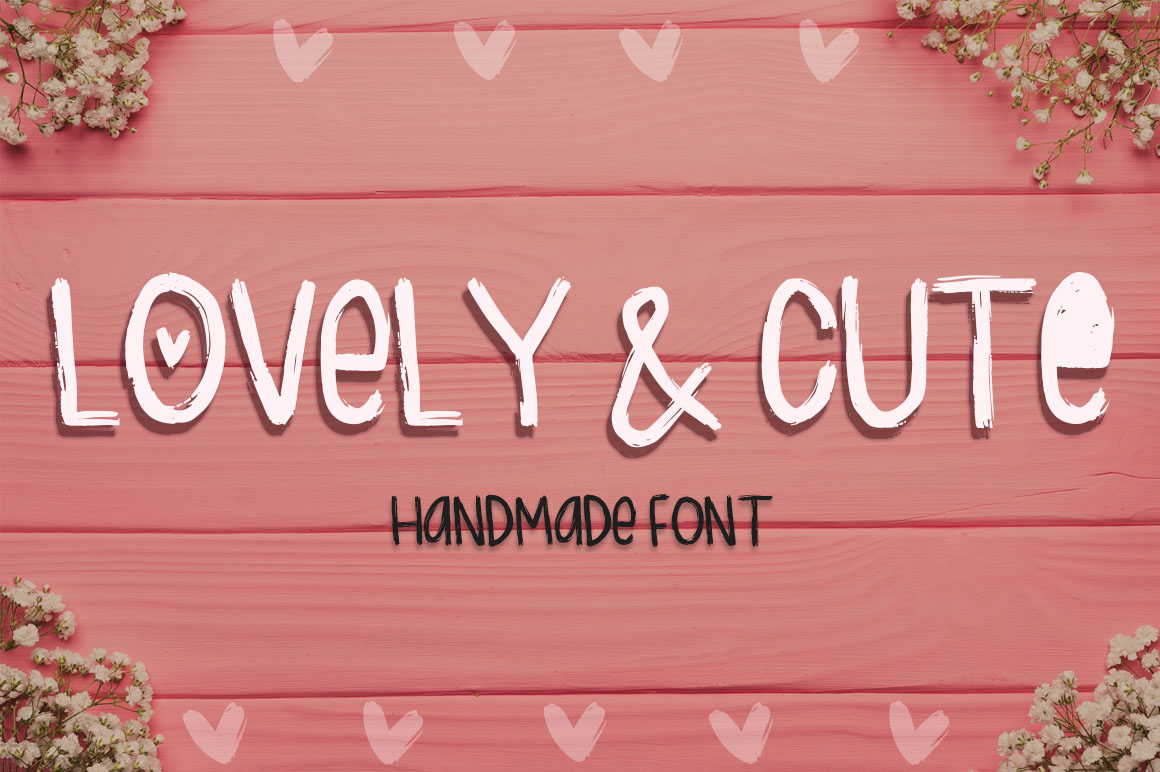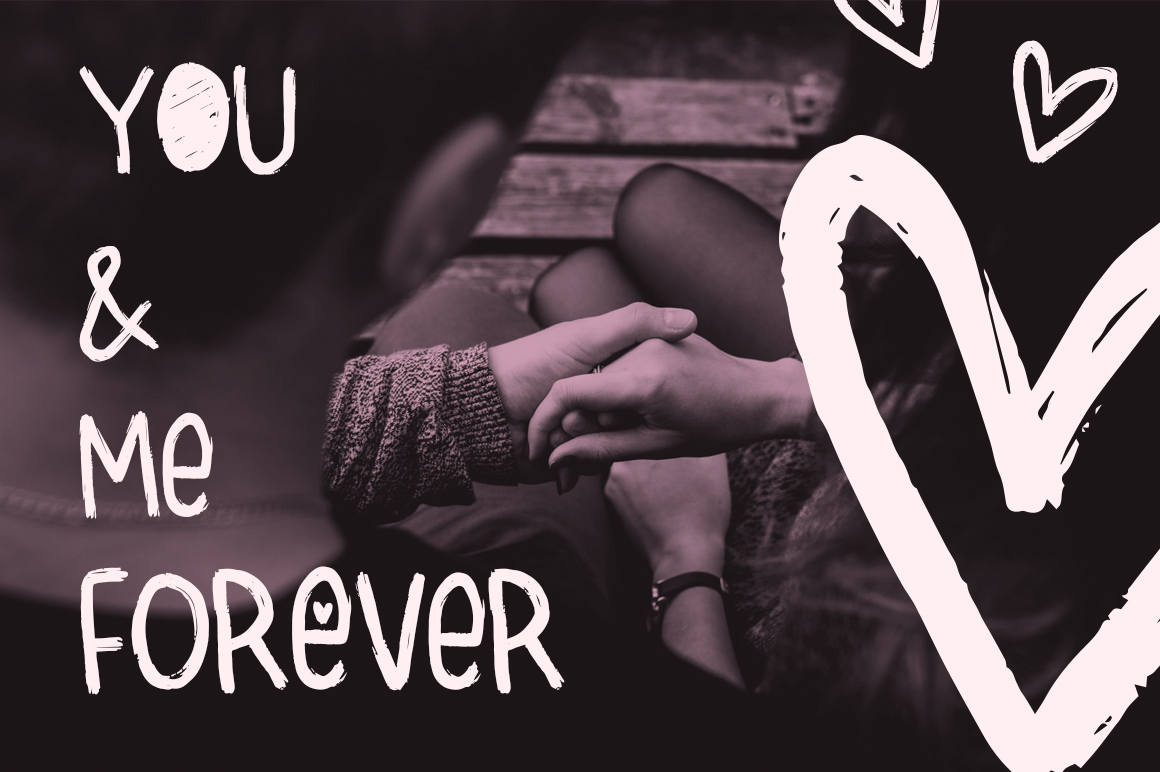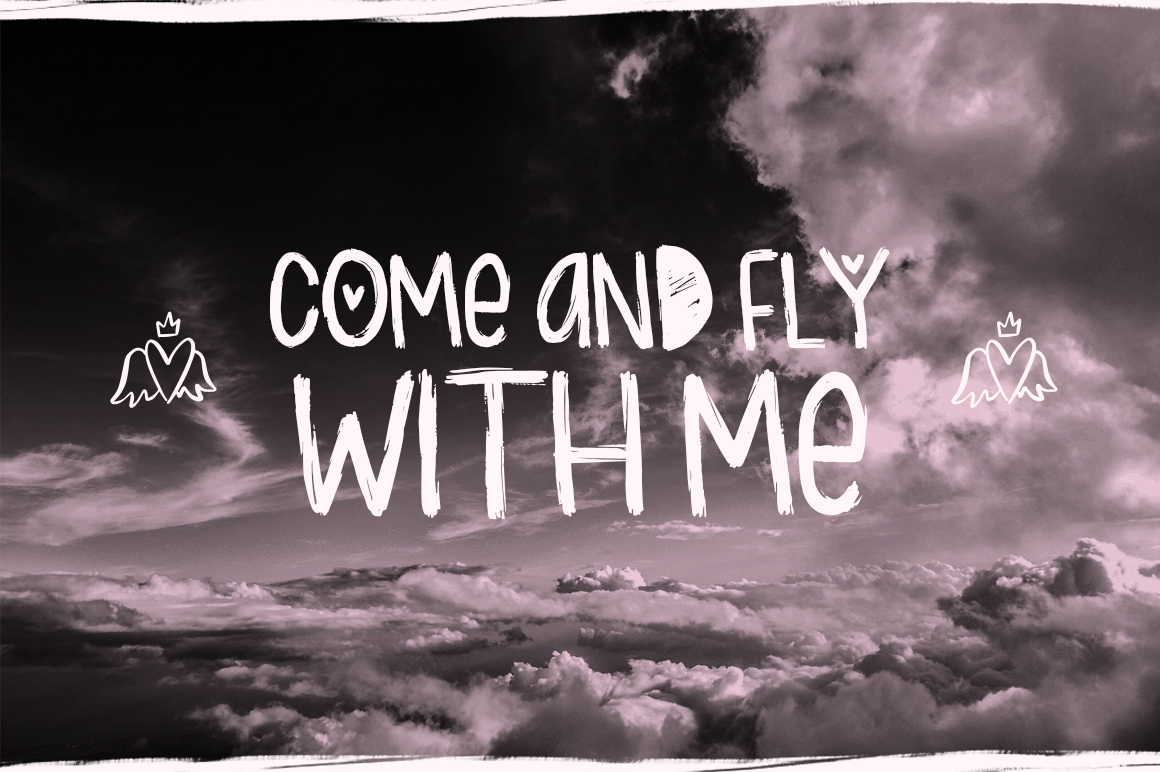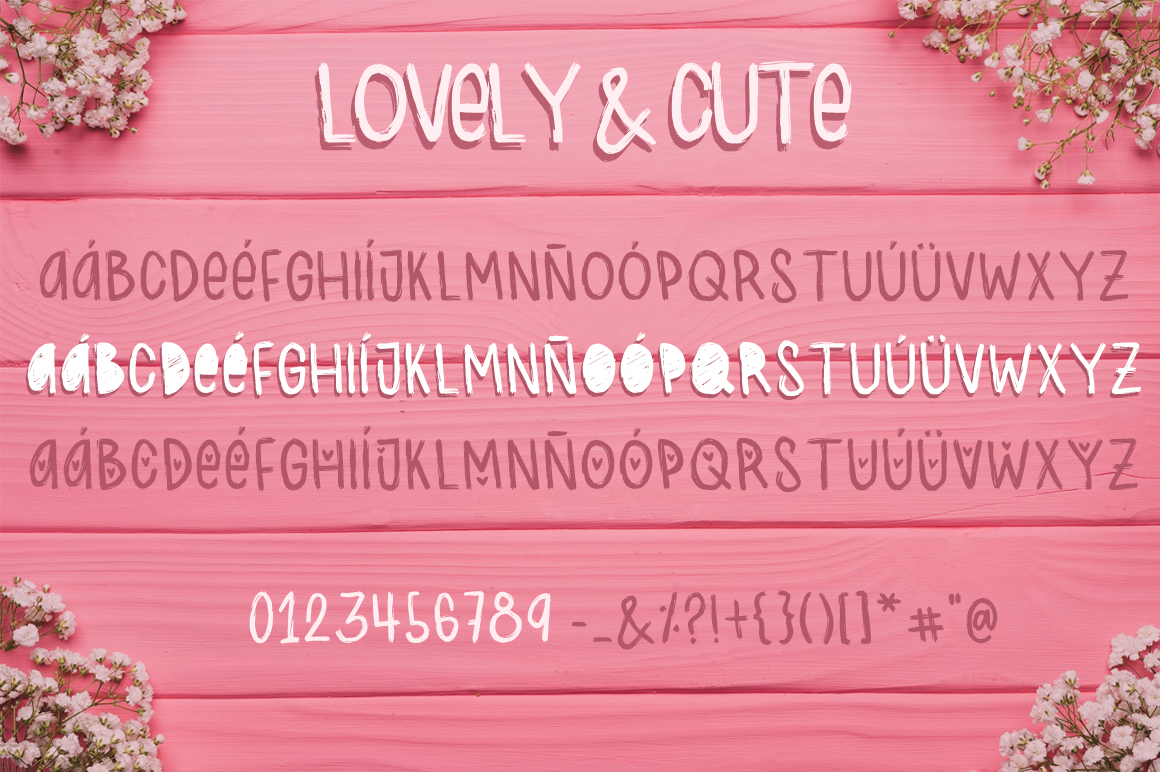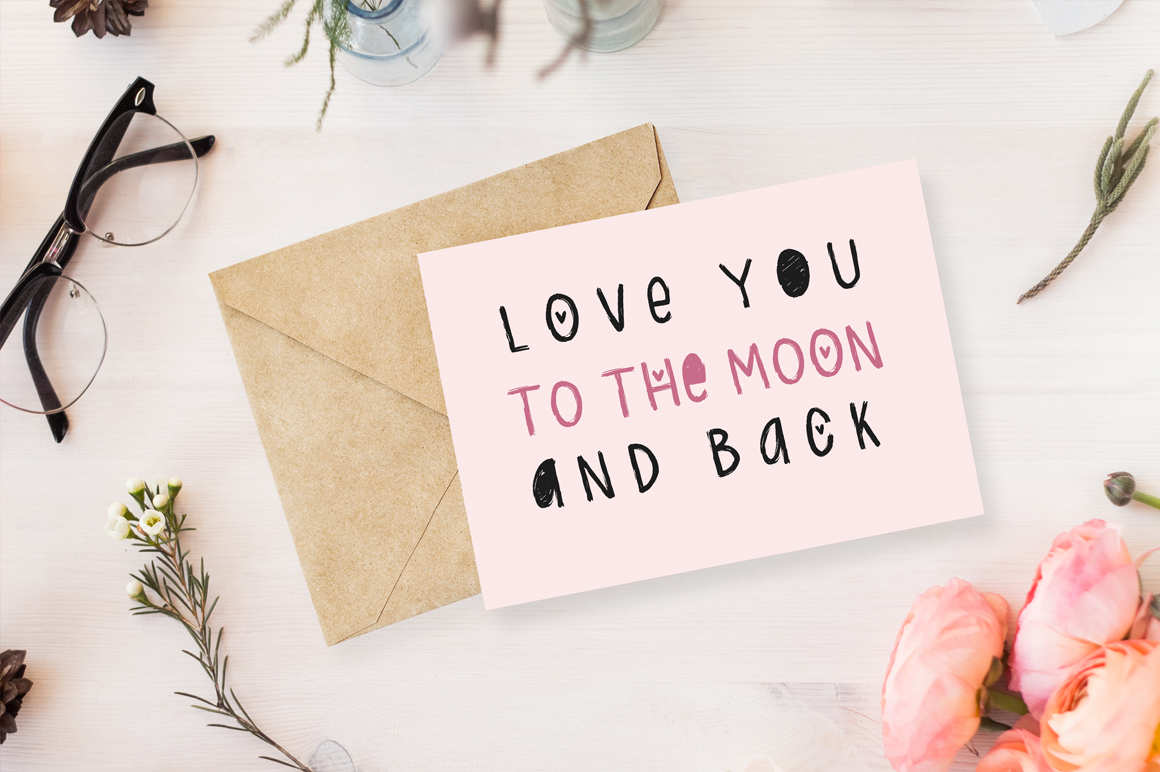
Lovely & Cute Font
About Lovely & Cute Font
“Lovely & Cute – 3 handmade fonts! The most romantic day of the year is coming and I’m all fevered up with lovely and cheesy designs! Here I present you a 3 pack font with that cute and goofy style that you can use in your designs and give it a unique touch.”